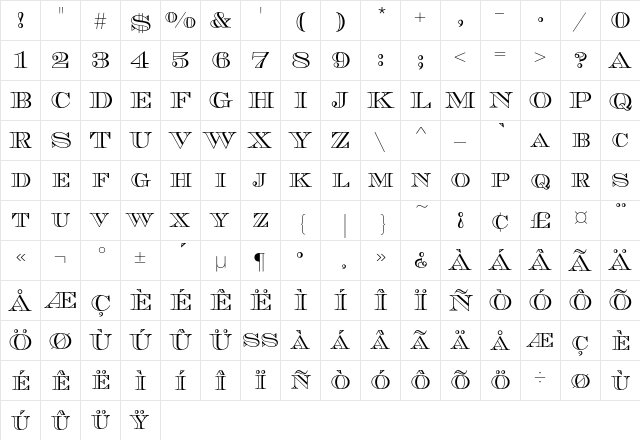
EscorialEF Outline
Design Context for EscorialEF Typeface
EscorialEF brings ornamental detail and strong personality to headlines and identities, where visual impact matters more than quiet functionality.
Font Pairing: Pair with a clean neutral sans-serif for body copy to let EscorialEF's character lead without overwhelming the composition.
Pro Tip: Use EscorialEF exclusively at display sizes — it was designed to be seen, not read at length. Let a neutral companion handle body copy.